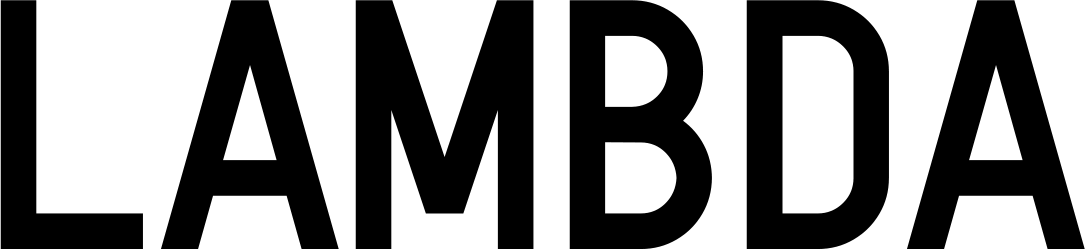
Lambda Font
If you think that your content lacks creativity and you don’t mind trying something different, we suggest you try Lambda. This is a sans-serif font and its simplicity gives it an approachable vibe which could be a very important feature in so many projects like posters, flyers, billboards, signs, and website headers.
This typeface gives you two options to choose from. Each of them contains both the uppercase and lowercase of the alphabets, the numbers, and the punctuation marks.